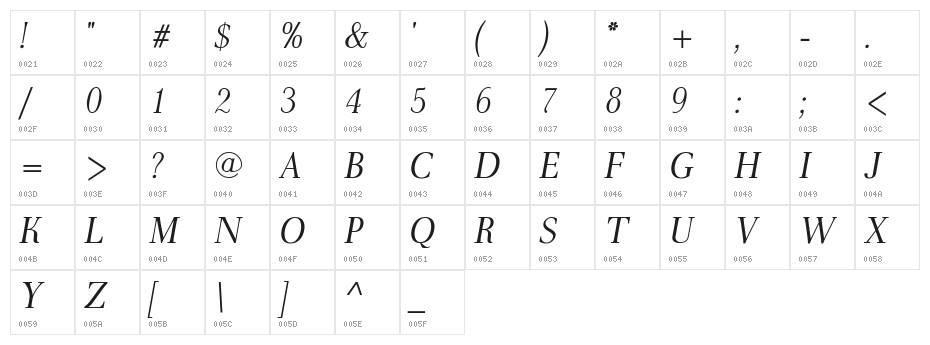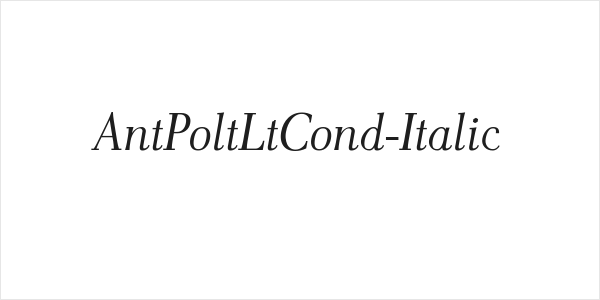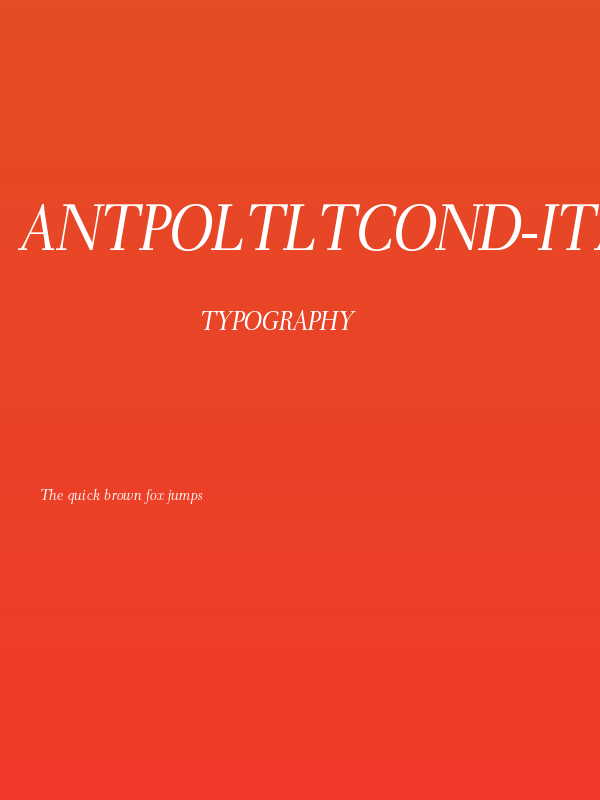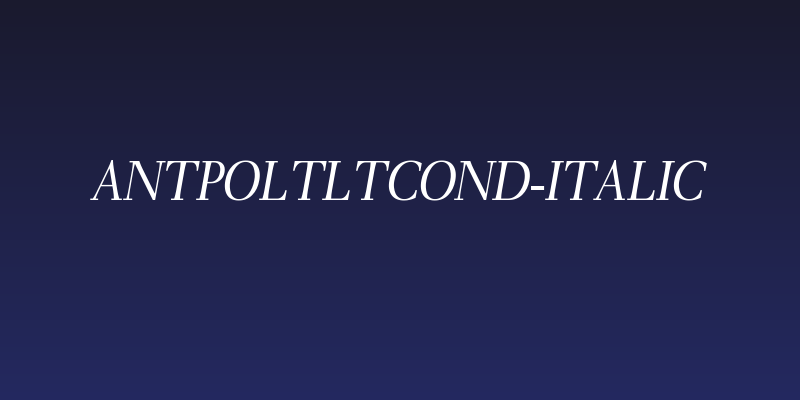
AntPoltLtCond-Italic Font
AntPoltLtCond-Italic Description
This font features a classic and elegant design with a slight slant, giving it an italicized appearance. The characters are narrow, contributing to a condensed look that maintains readability. The strokes are smooth and consistent, with moderate contrast between thick and thin lines, enhancing its sophisticated style. The uppercase letters are tall and commanding, while the lowercase letters are more delicate, providing a nice balance. The numerals are clear and well-proportioned, and the special characters are distinct and stylish, making this font versatile for various applications.
| Use Case | Headlines, Invitations, Branding |
| Proposed Projects | Ideal for projects requiring a touch of sophistication, such as wedding invitations, formal event programs, or elegant branding materials. |